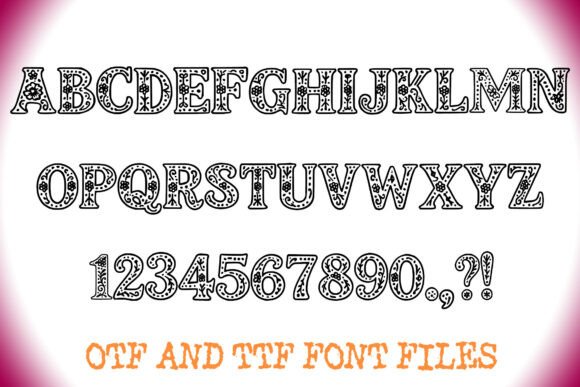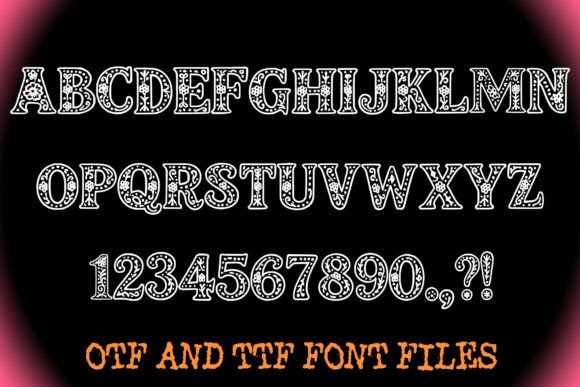
Carnival Day of the Dead Font: A Vibrant Celebration of Mexican Heritage
The Carnival Day of the Dead Font is a festive decorative display font that embodies the vibrant traditions of Día de los Muertos, or Day of the Dead. This stunning typeface is inspired by the colorful and ornate decorations that are characteristic of this Mexican holiday, and is perfect for designers and crafters looking to add a touch of cultural charm to their creative projects.
A Font Inspired by Sugar Skulls and Papel Picado
Each uppercase letter in the Carnival Day of the Dead Font is intricately adorned with floral motifs, ornamental dots, and folkloric patterns, mimicking the look of sugar skulls and papel picado. These traditional Mexican decorations are a hallmark of Día de los Muertos celebrations, and the font’s bold serif structure and detailed embellishments bring them to life in a way that’s both authentic and eye-catching.
Perfect for a Variety of Creative Projects
Whether you’re designing event posters, holiday cards, party invitations, themed packaging, or crafts centered around Mexican heritage, the Carnival Day of the Dead Font is the perfect choice. Its joyful symbolism and visual richness make it an excellent addition to any creative project, and its versatility ensures that it will complement a wide range of design styles.
Key Features of the Carnival Day of the Dead Font
- Festive Decorative Display Font: The Carnival Day of the Dead Font is a decorative display font that’s perfect for headlines, titles, and other design elements that need to make a statement.
- Intricate Embellishments: Each uppercase letter is intricately adorned with floral motifs, ornamental dots, and folkloric patterns, giving the font a level of detail and visual interest that’s hard to find elsewhere.
- Bold Serif Structure: The font’s bold serif structure provides a sturdy foundation for the intricate embellishments, making it easy to read and understand.
- Cultural Charm: The Carnival Day of the Dead Font radiates cultural charm and celebration, making it perfect for designers and crafters looking to add a touch of Mexican heritage to their creative projects.
Using the Carnival Day of the Dead Font in Your Designs
The Carnival Day of the Dead Font is a versatile typeface that can be used in a wide range of creative projects. Here are a few ideas to get you started:
- Event Posters: Use the font to create eye-catching event posters for Día de los Muertos celebrations, festivals, or other events that celebrate Mexican heritage.
- Holiday Cards: Add a touch of cultural charm to your holiday cards with the Carnival Day of the Dead Font, perfect for sending to friends and family during the Día de los Muertos season.
- Party Invitations: Create festive party invitations that set the tone for a fun and celebratory event, complete with intricate details and embellishments.
- Themed Packaging: Use the font to create themed packaging for products that celebrate Mexican heritage, such as food, drinks, or crafts.
- Crafts: The Carnival Day of the Dead Font is perfect for crafters who want to add a touch of Mexican heritage to their projects, such as scrapbooking, paper crafting, or DIY decorations.
The Carnival Day of the Dead Font is a unique and festive typeface that’s perfect for designers and crafters looking to add a touch of Mexican heritage to their creative projects. With its intricate embellishments, bold serif structure, and cultural charm, this font is sure to bring joyful symbolism and visual richness to any design. Whether you’re creating event posters, holiday cards, party invitations, themed packaging, or crafts, the Carnival Day of the Dead Font is an excellent choice.